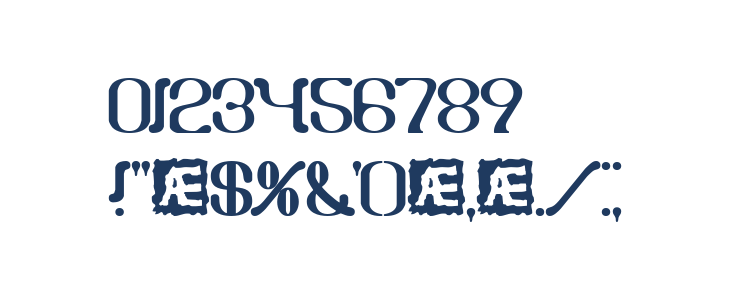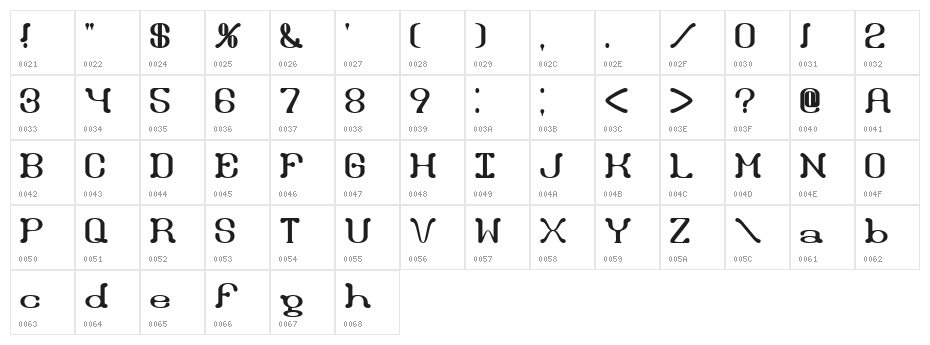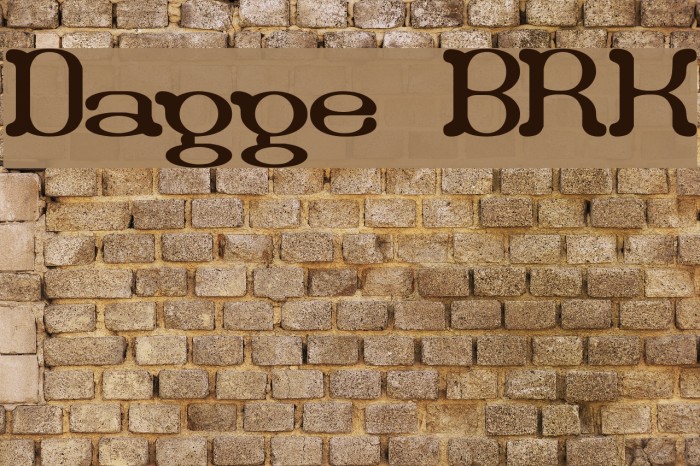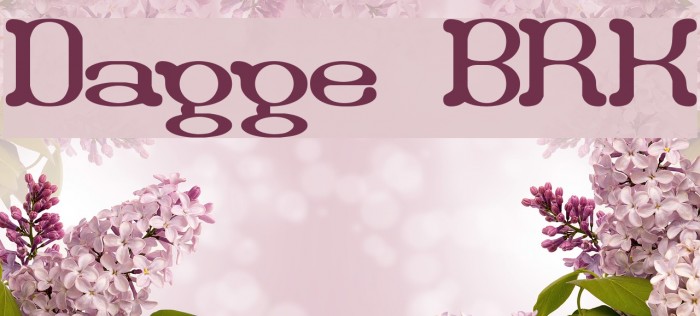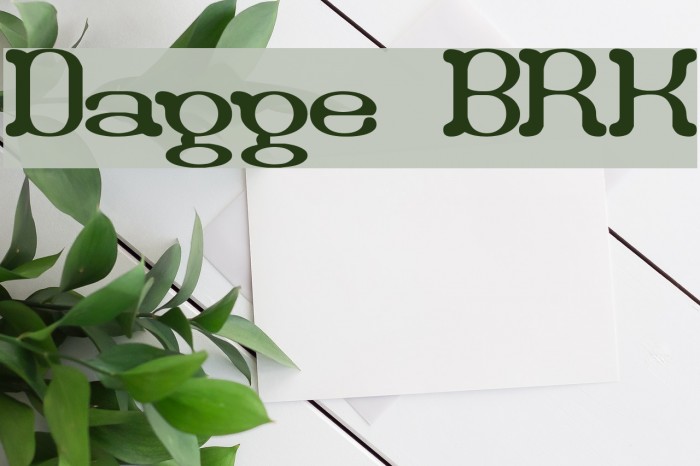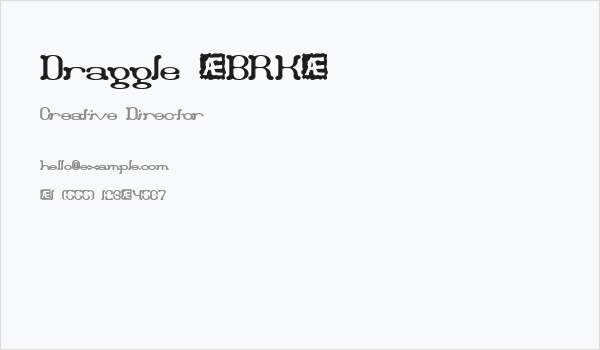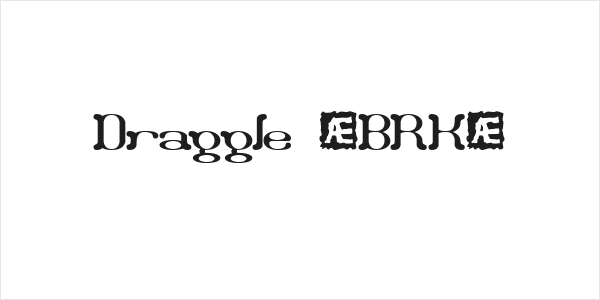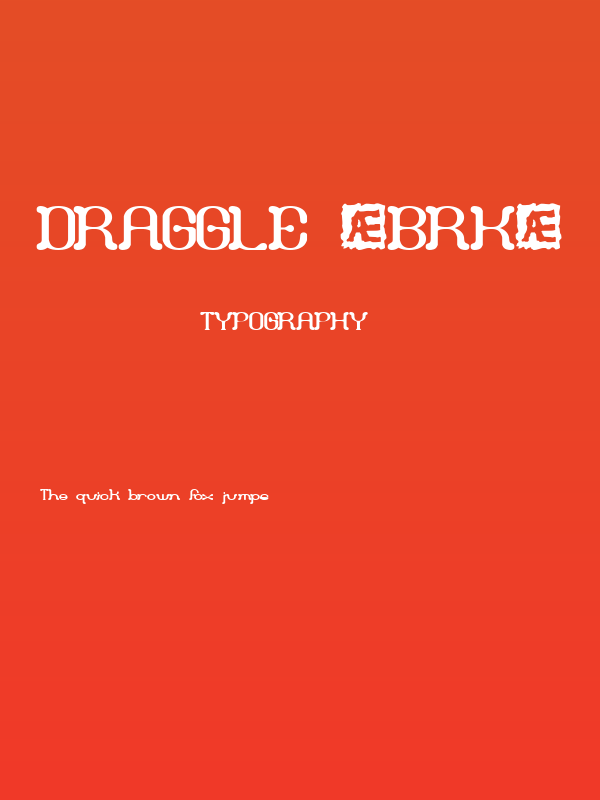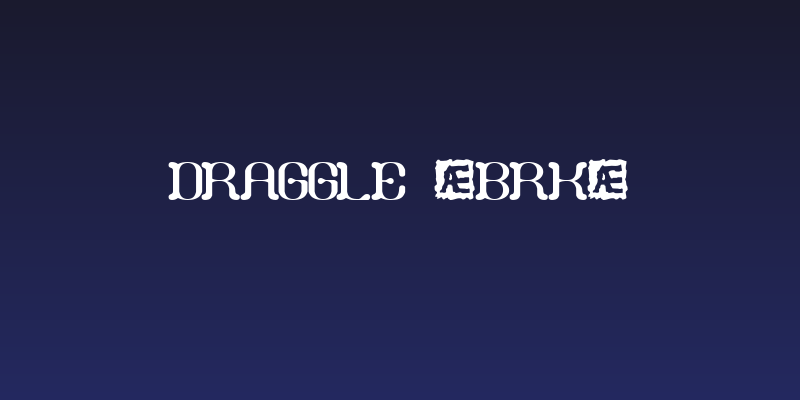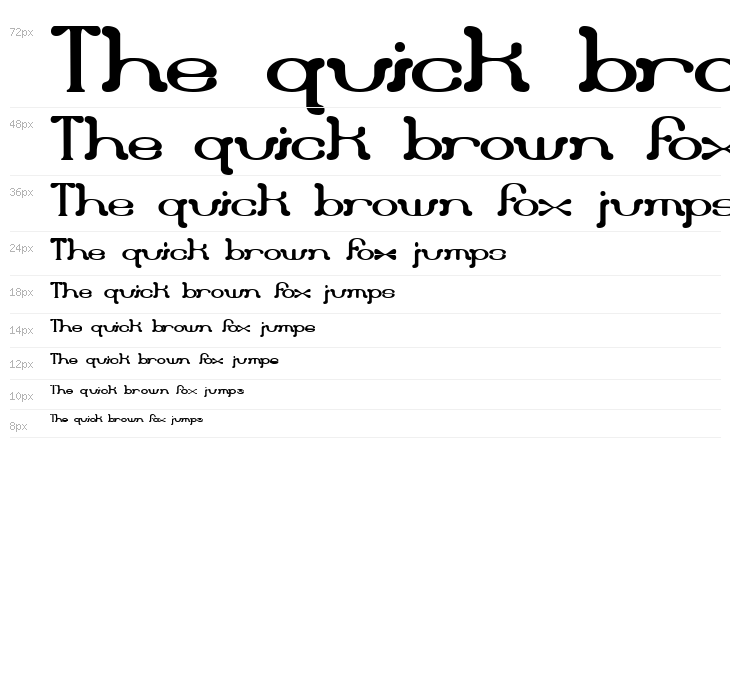
Draggle [BRK] Font
Draggle [BRK] Description
This font features a unique and playful design with a decorative flair. The characters are bold and have a distinct, flowing style that incorporates rounded edges and whimsical curves. The uppercase letters are particularly striking, with a sense of movement and fluidity. The lowercase letters maintain this playful aesthetic, offering a cohesive look across the alphabet. Numbers and special characters are equally bold and artistic, making this font suitable for creative and eye-catching designs. The overall appearance is both modern and artistic, with a touch of vintage charm.